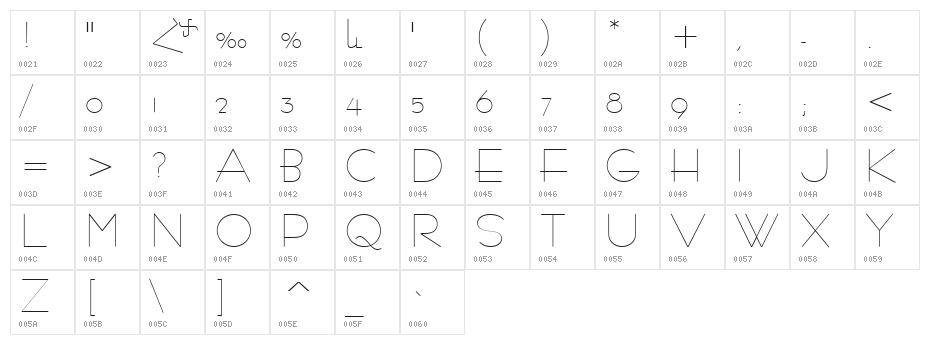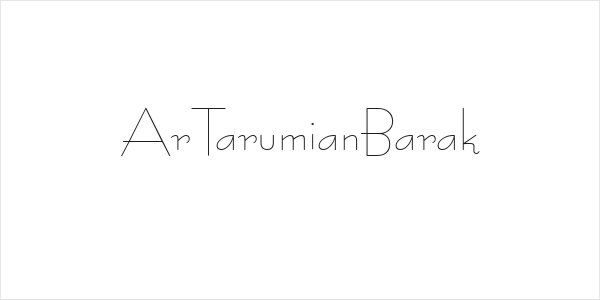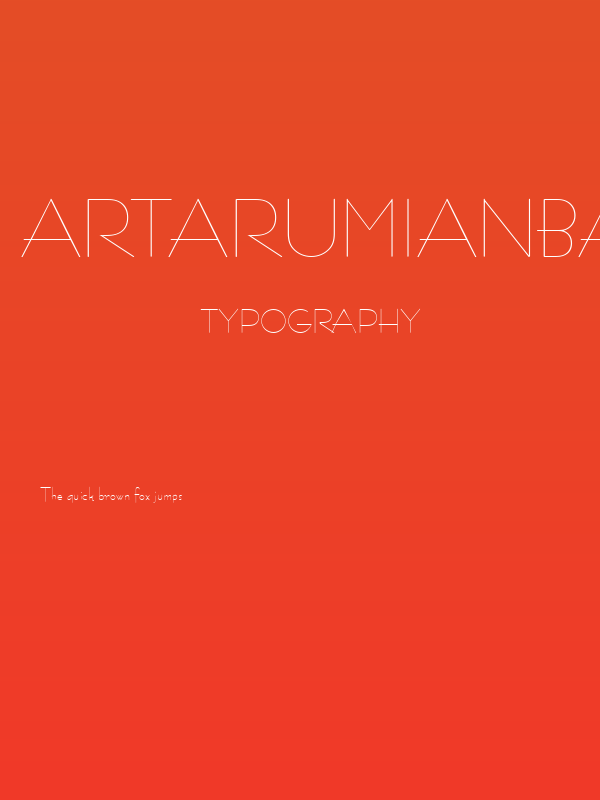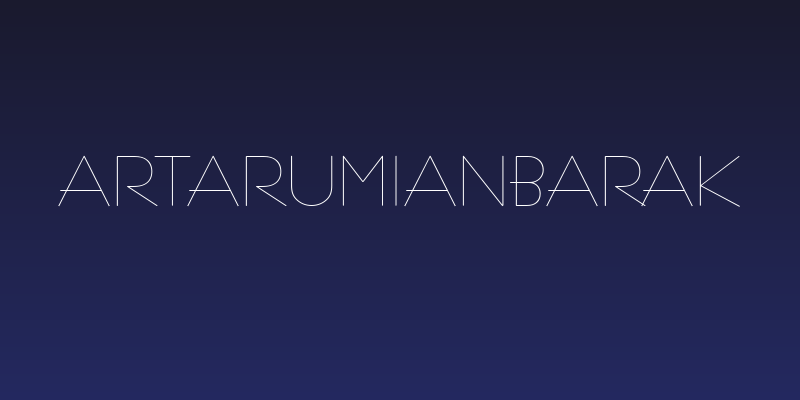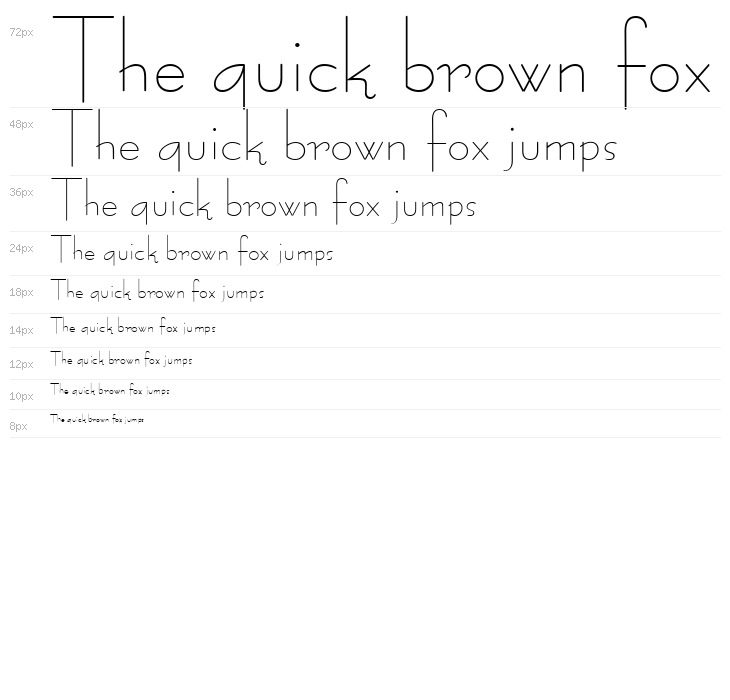
ArTarumianBarak Font
ArTarumianBarak Description
This font features a clean and elegant design with thin, uniform strokes that give it a modern and minimalist appearance. The uppercase letters are characterized by their geometric shapes and sharp angles, while the lowercase letters maintain a consistent style with slightly rounded edges. The numerals are clear and legible, matching the overall aesthetic of the alphabet. Special characters are thoughtfully designed to complement the letterforms, maintaining the same thin stroke weight. This font's simplicity and clarity make it versatile for various design applications.
| Proposed Projects | Ideal for modern branding, minimalist posters, elegant invitations, and clean web design. |